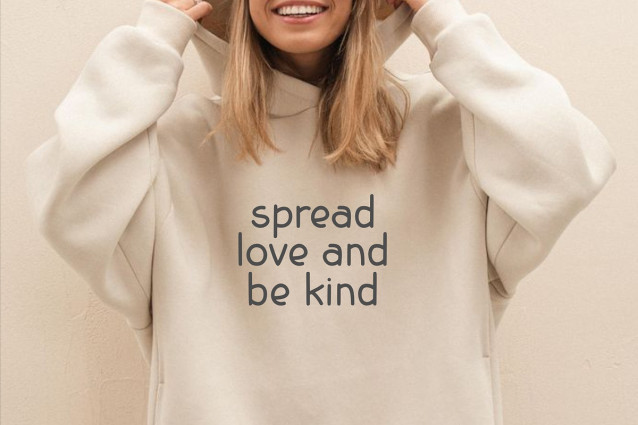
Clausly Christmas Font is the perfect font for Christmas! Your gifts and crafts will look stunning with it! It comes with 20+ super cute Santa clause vectors.